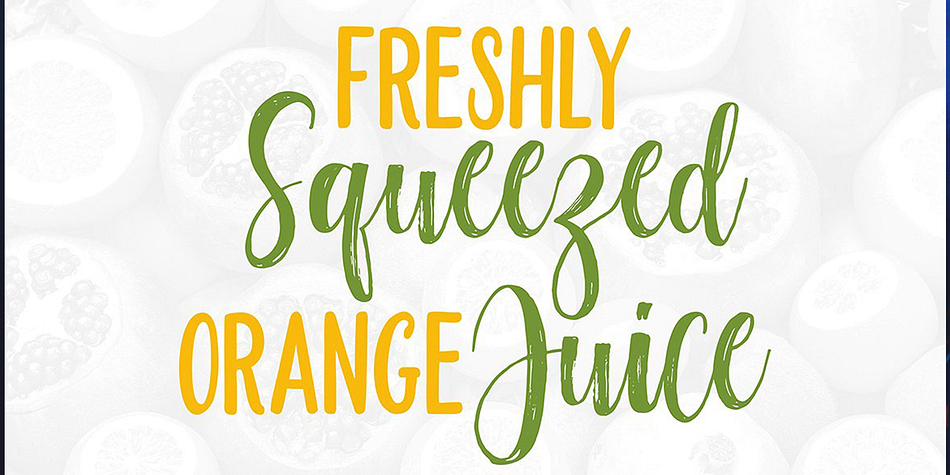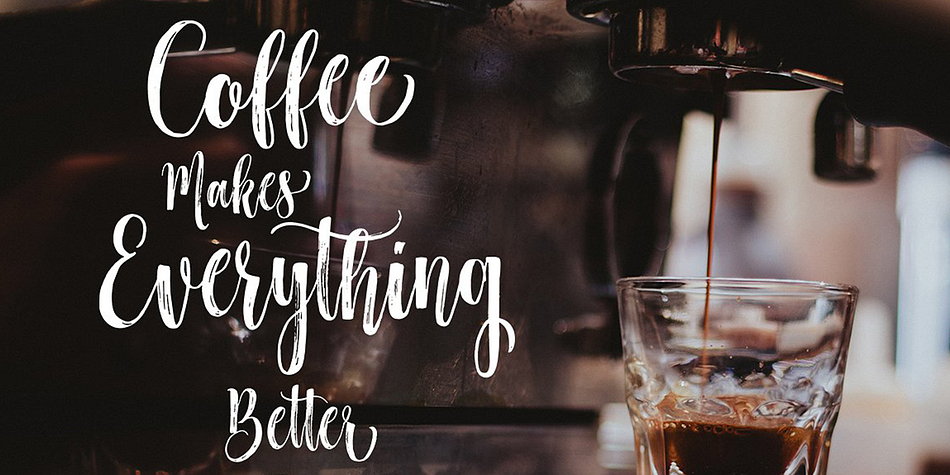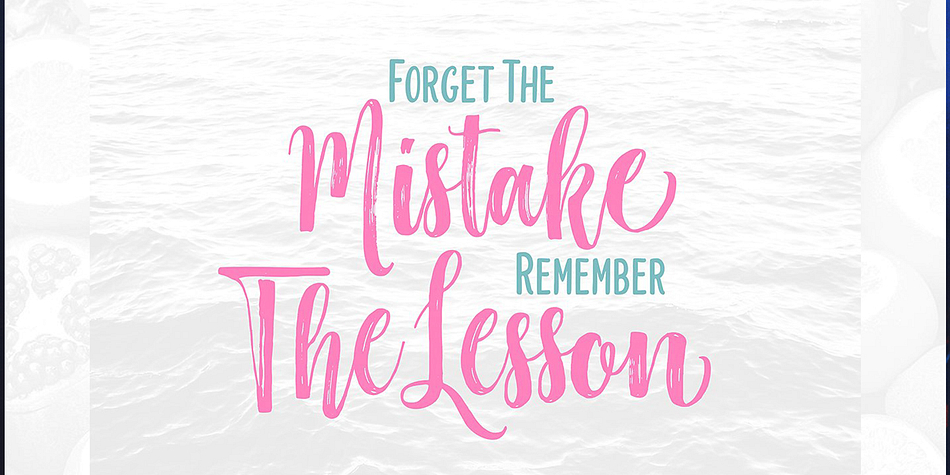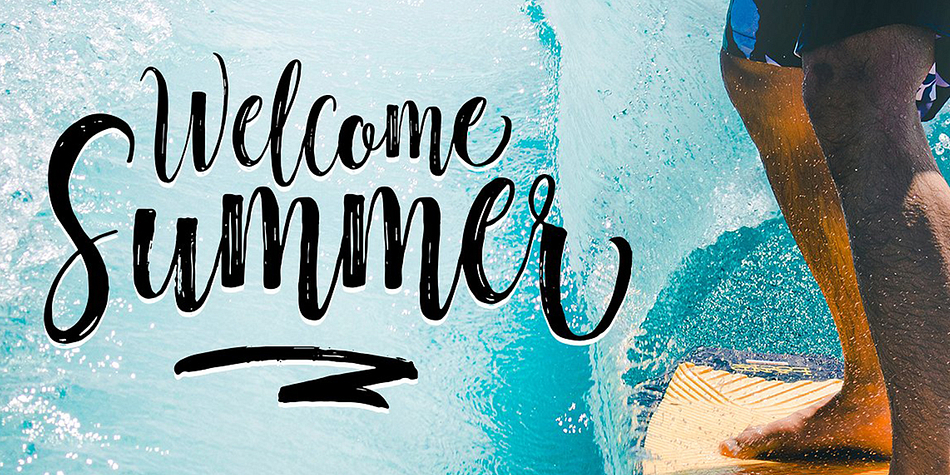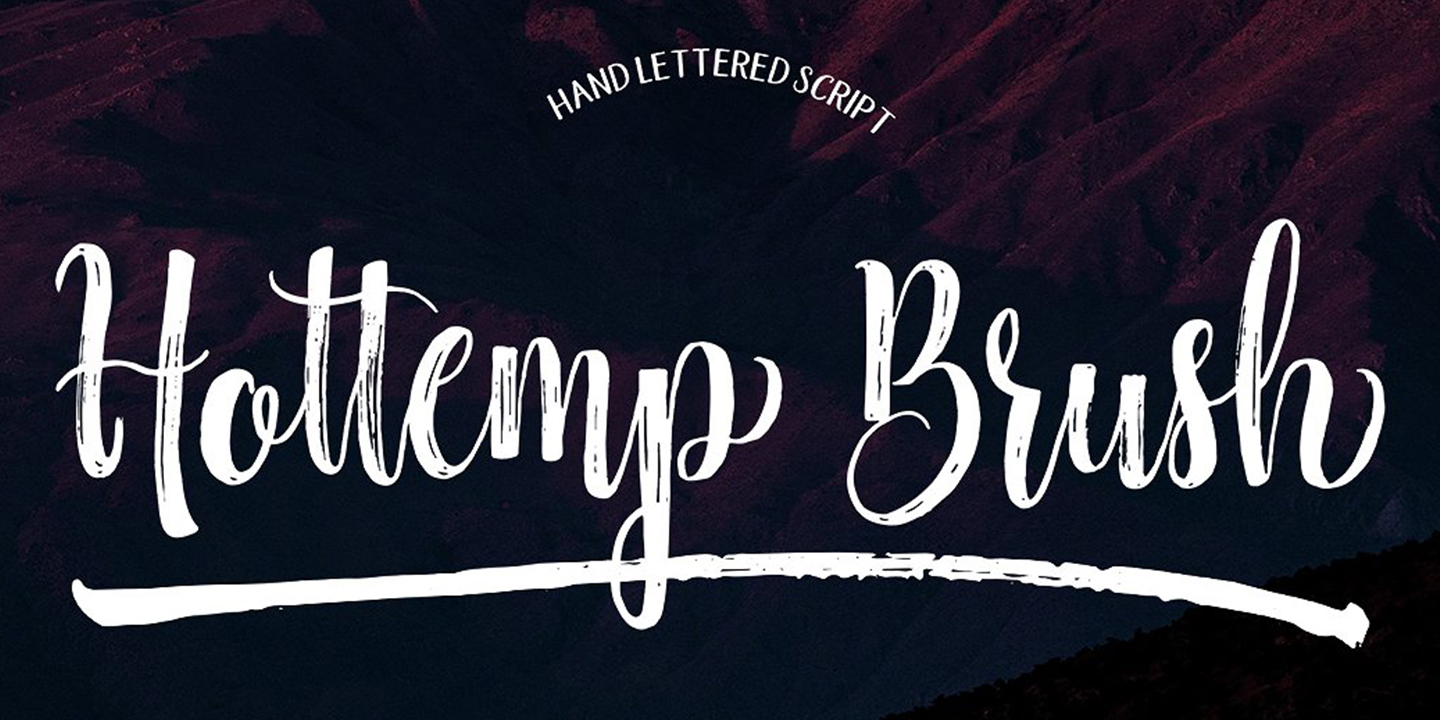
Hottemp Brush is a multiple classification font family. This typeface has four styles and was published by Area Type Studio.
Hottemp Brush Font Duo is a modern calligraphy font, with characters that dance along the baseline and elegant touch. Opentype features with stylistic alternates, ligatures and multiple language support.